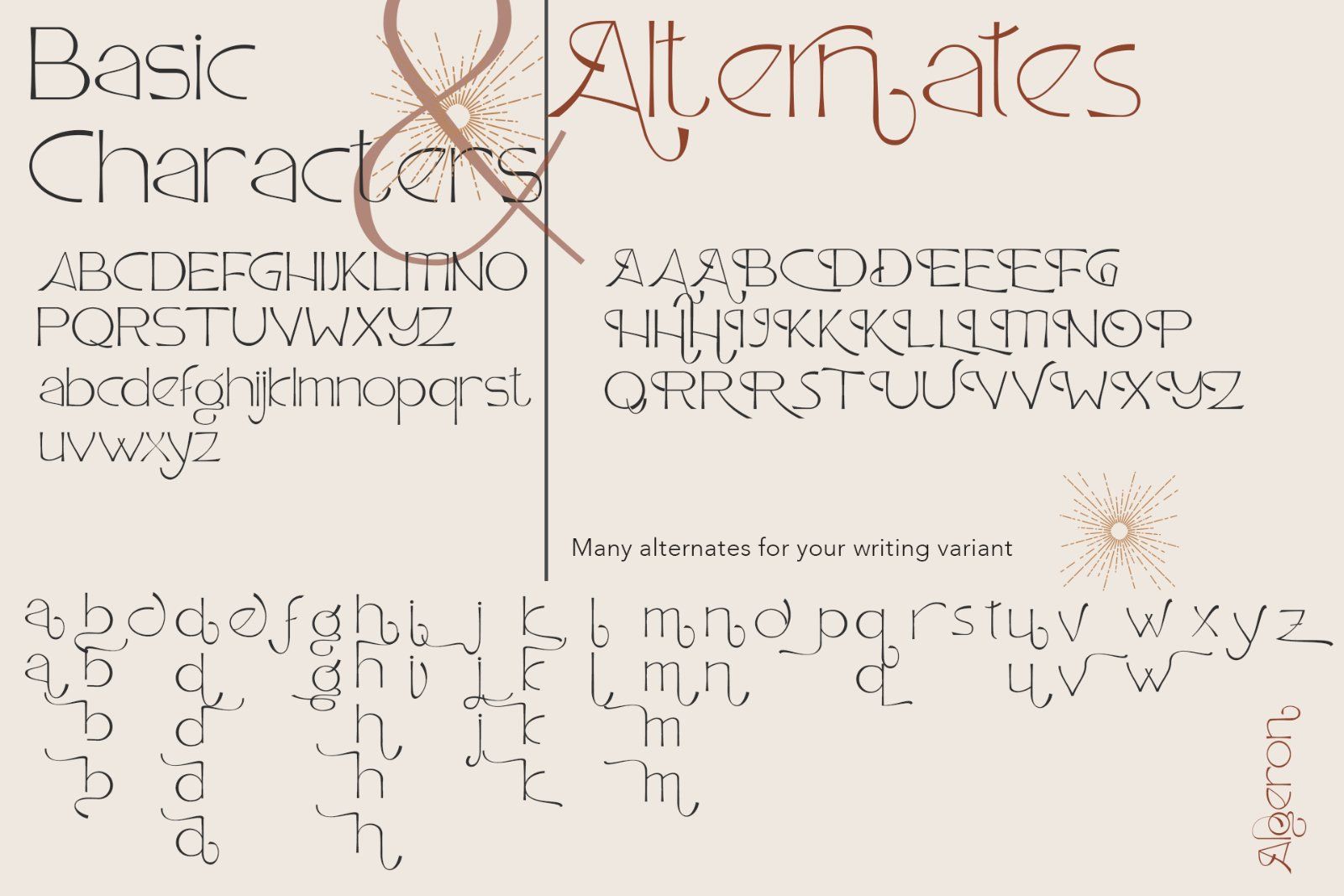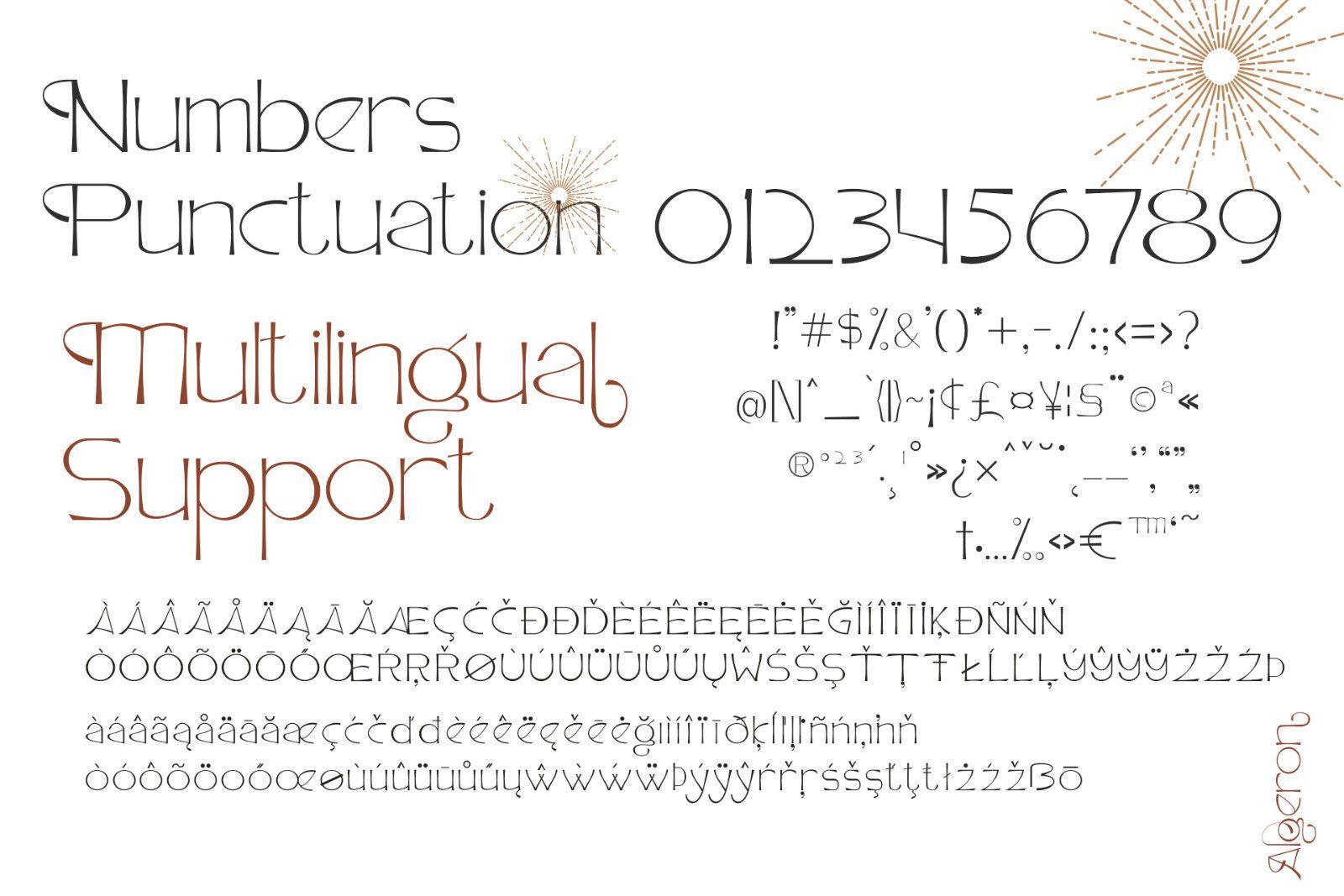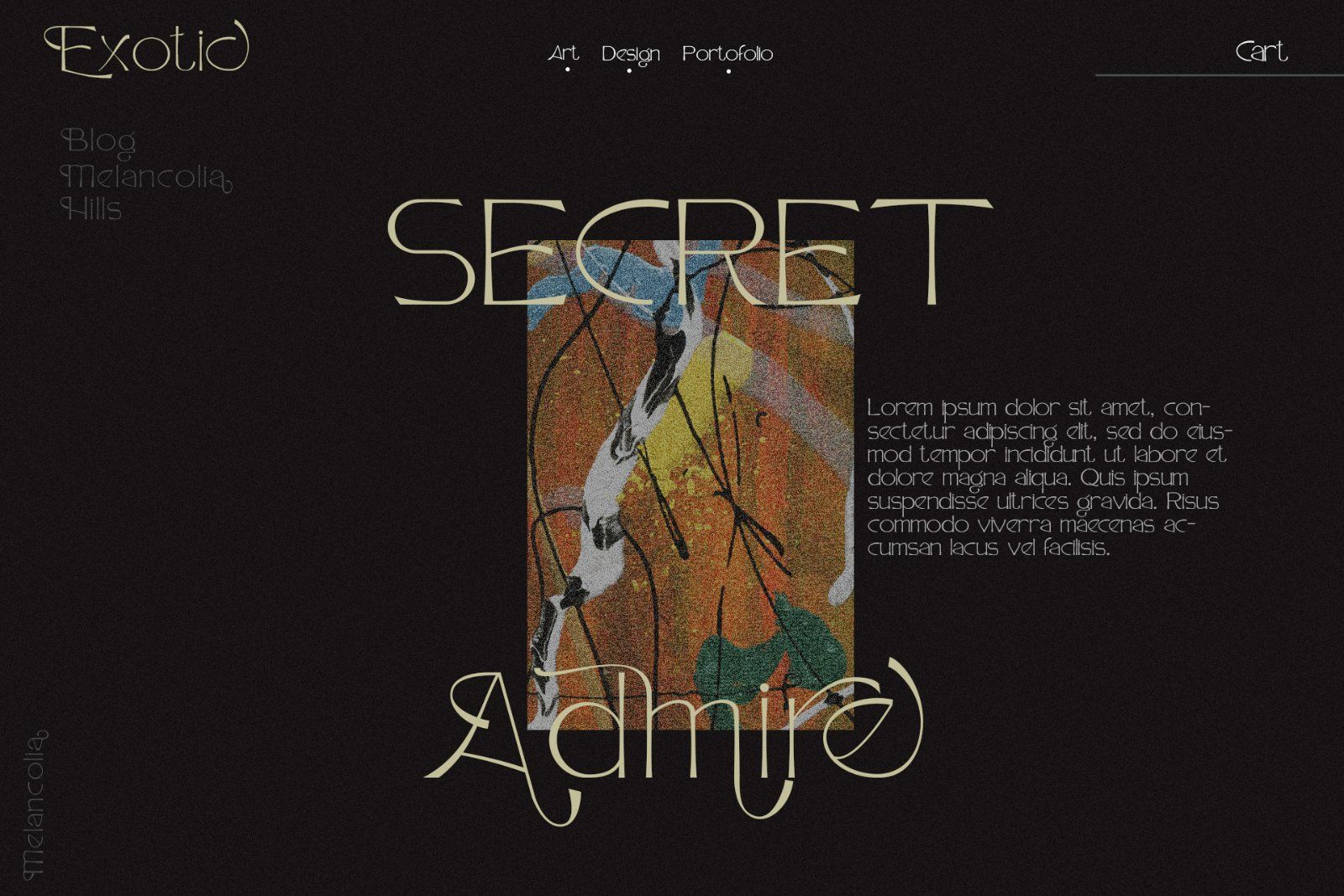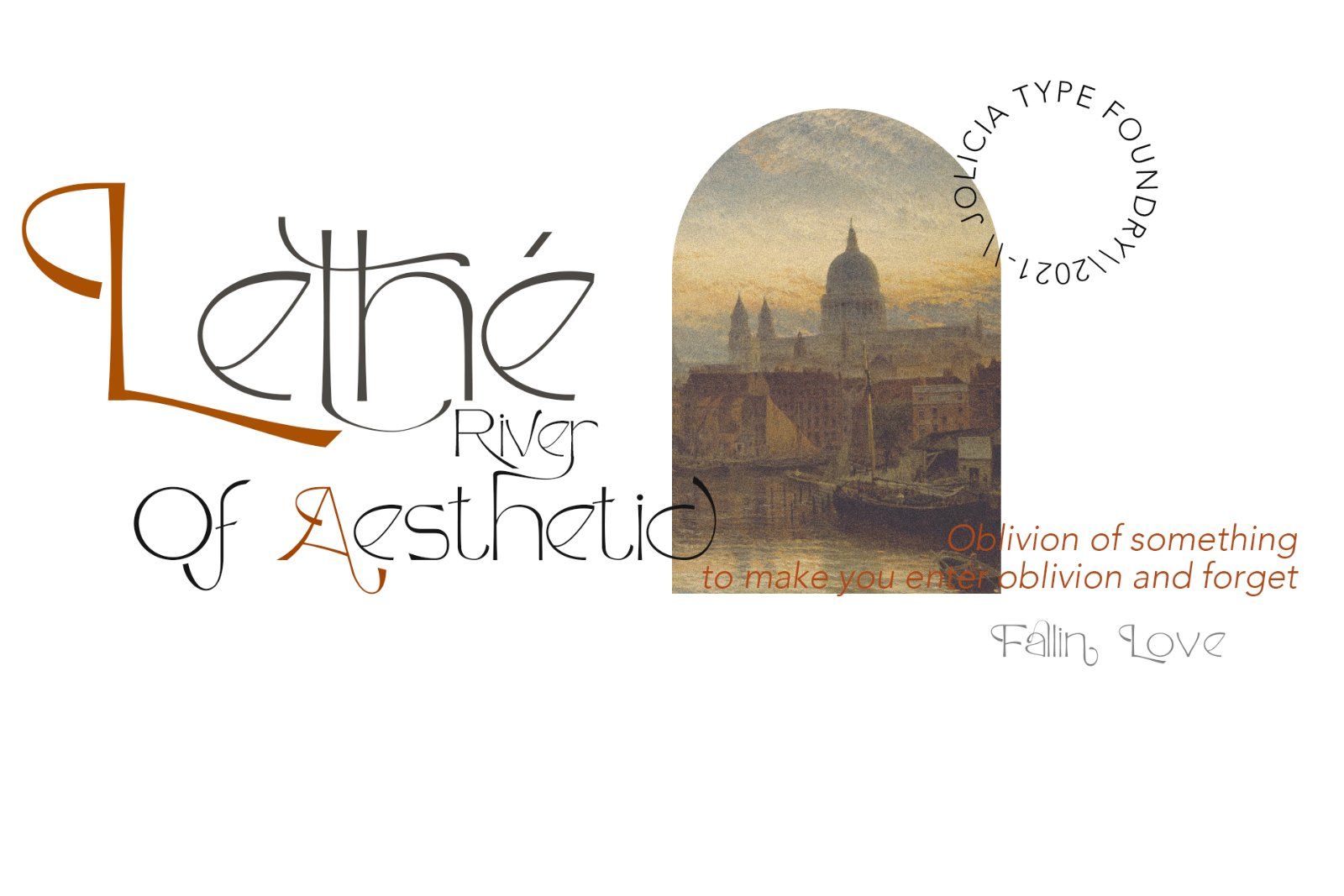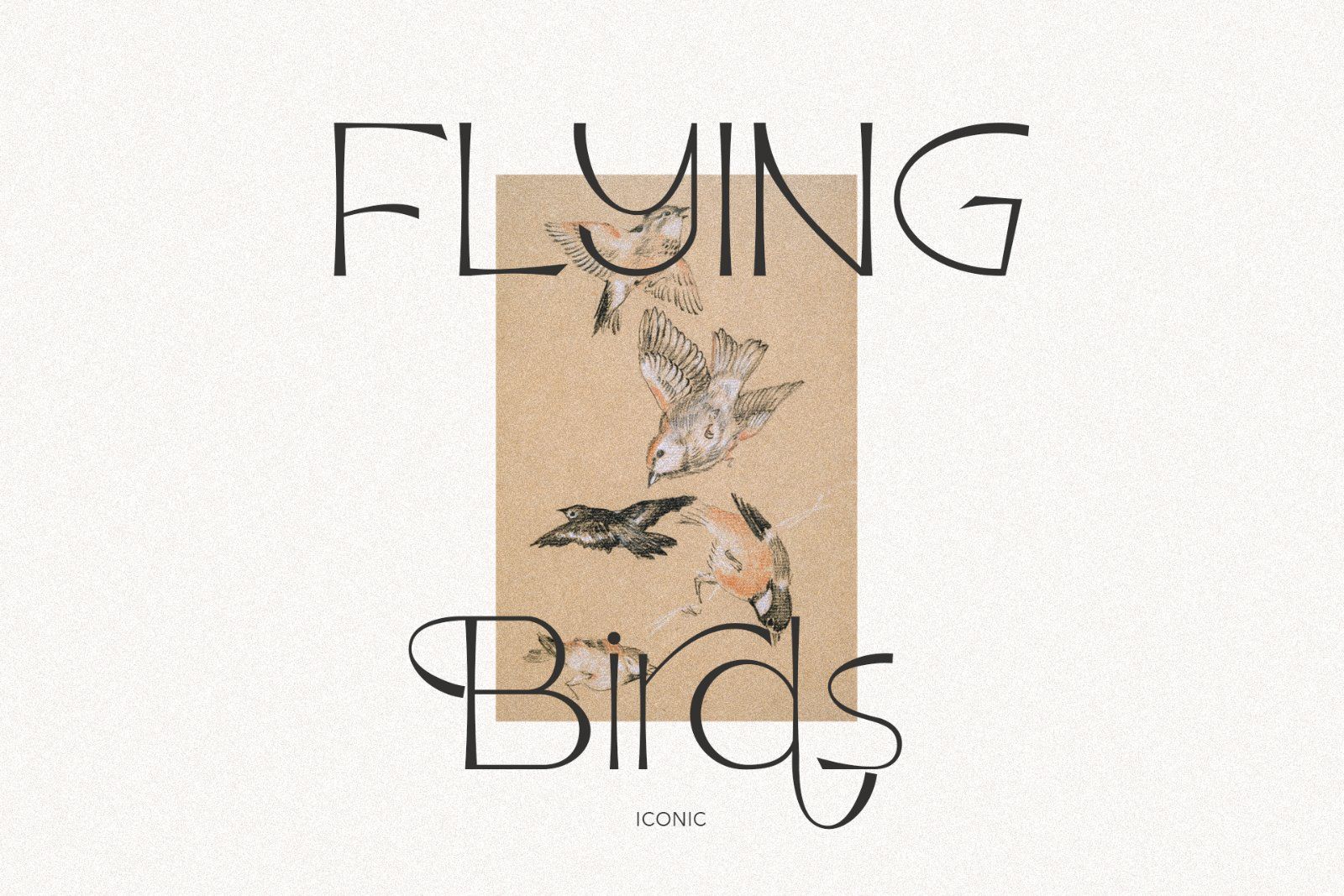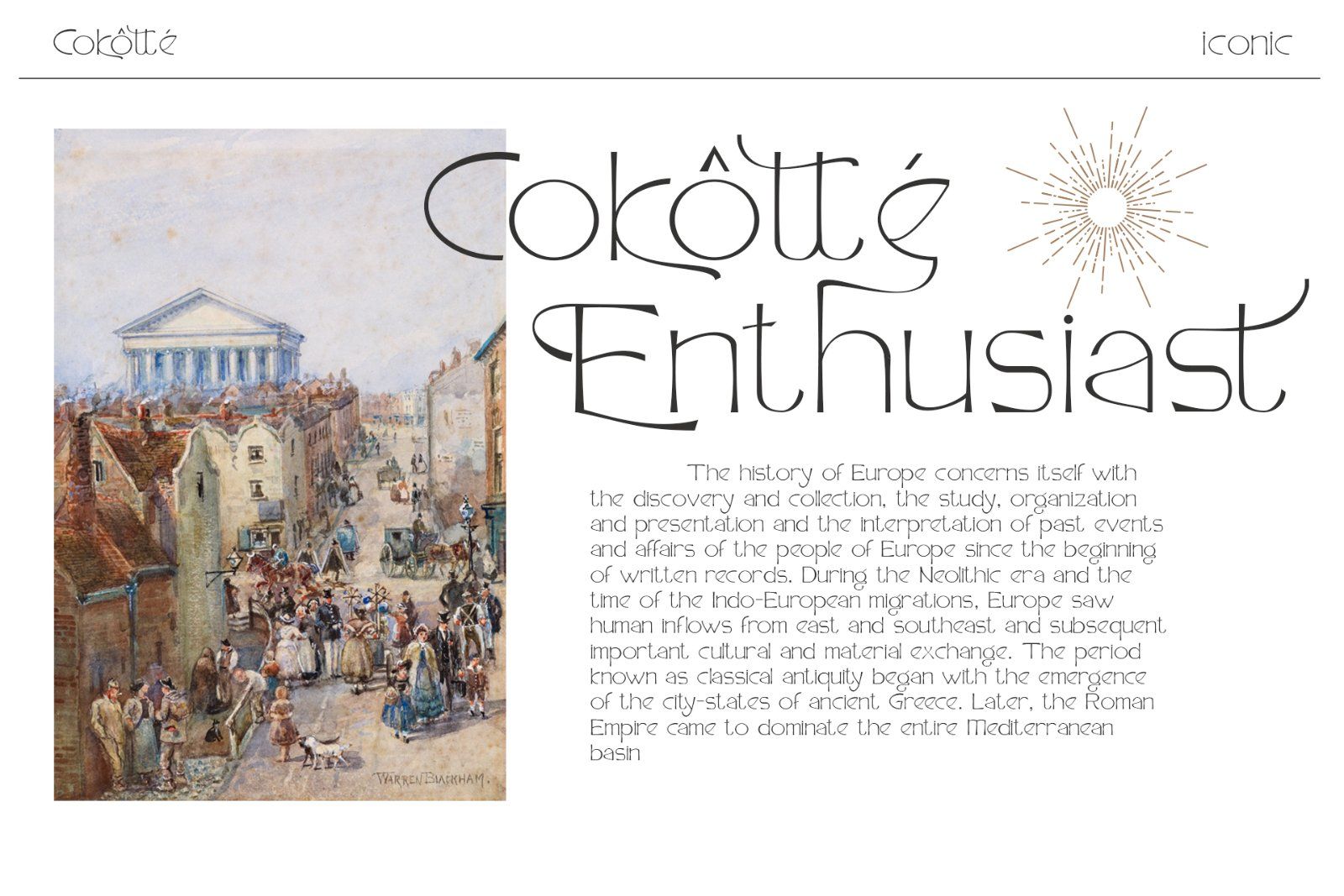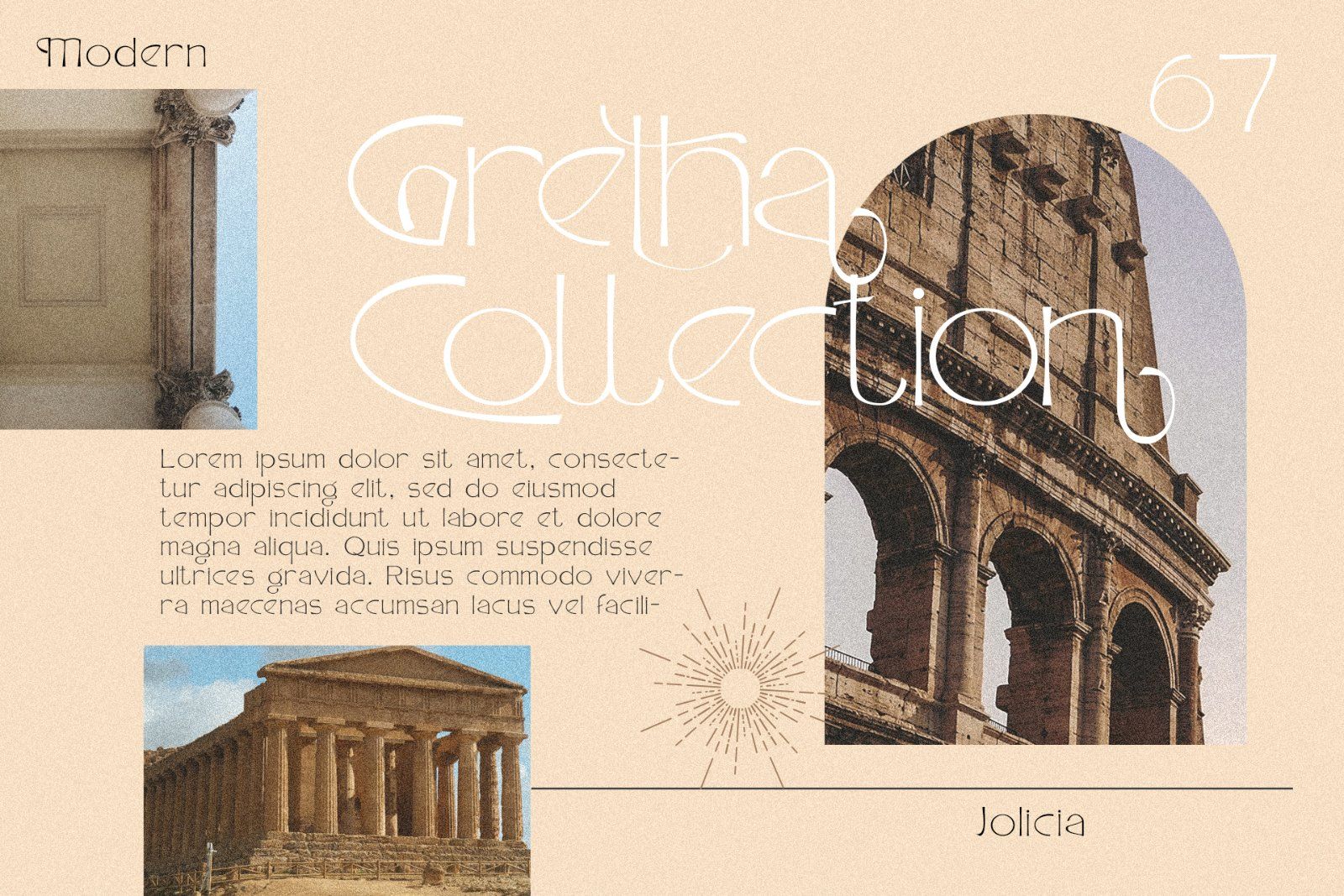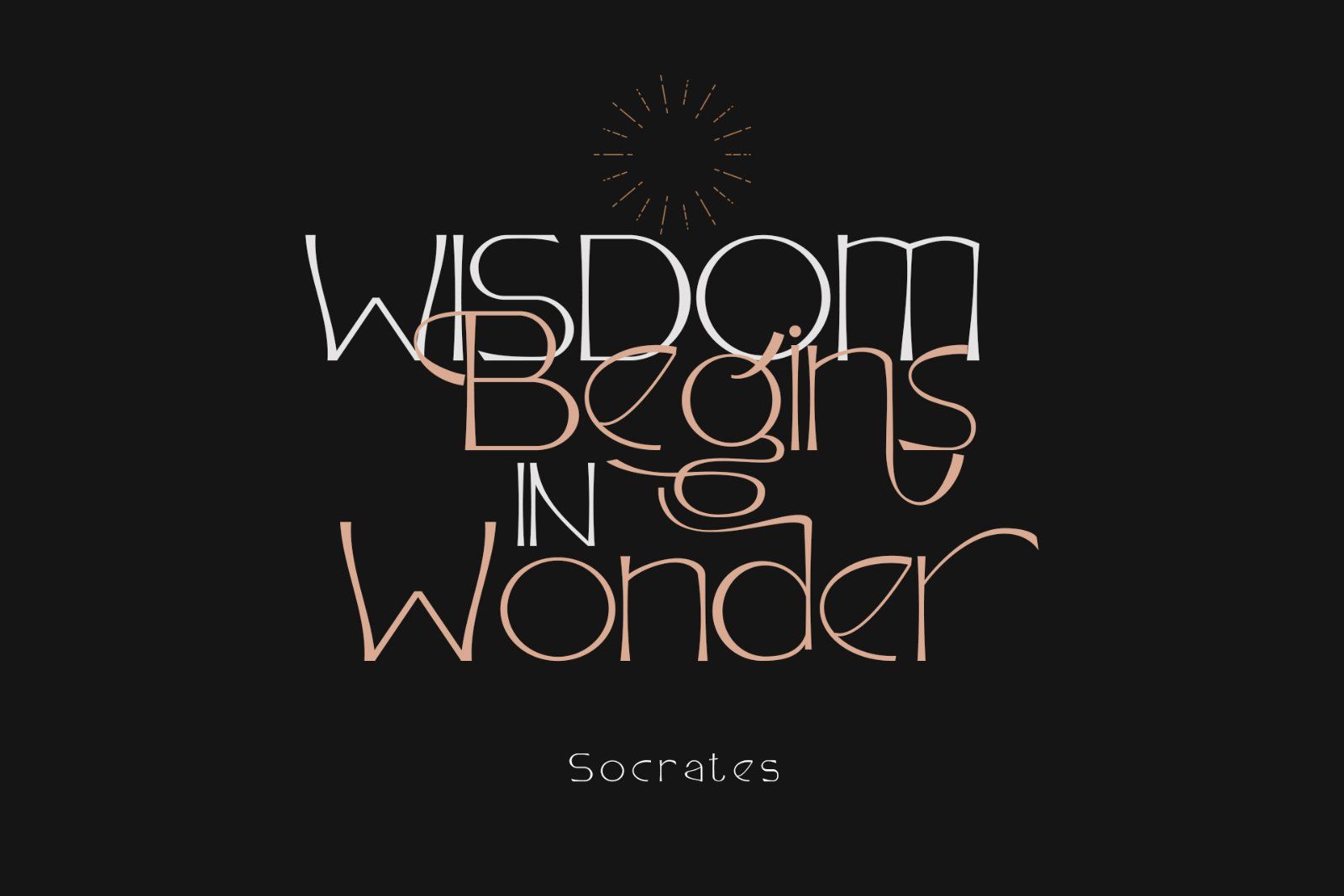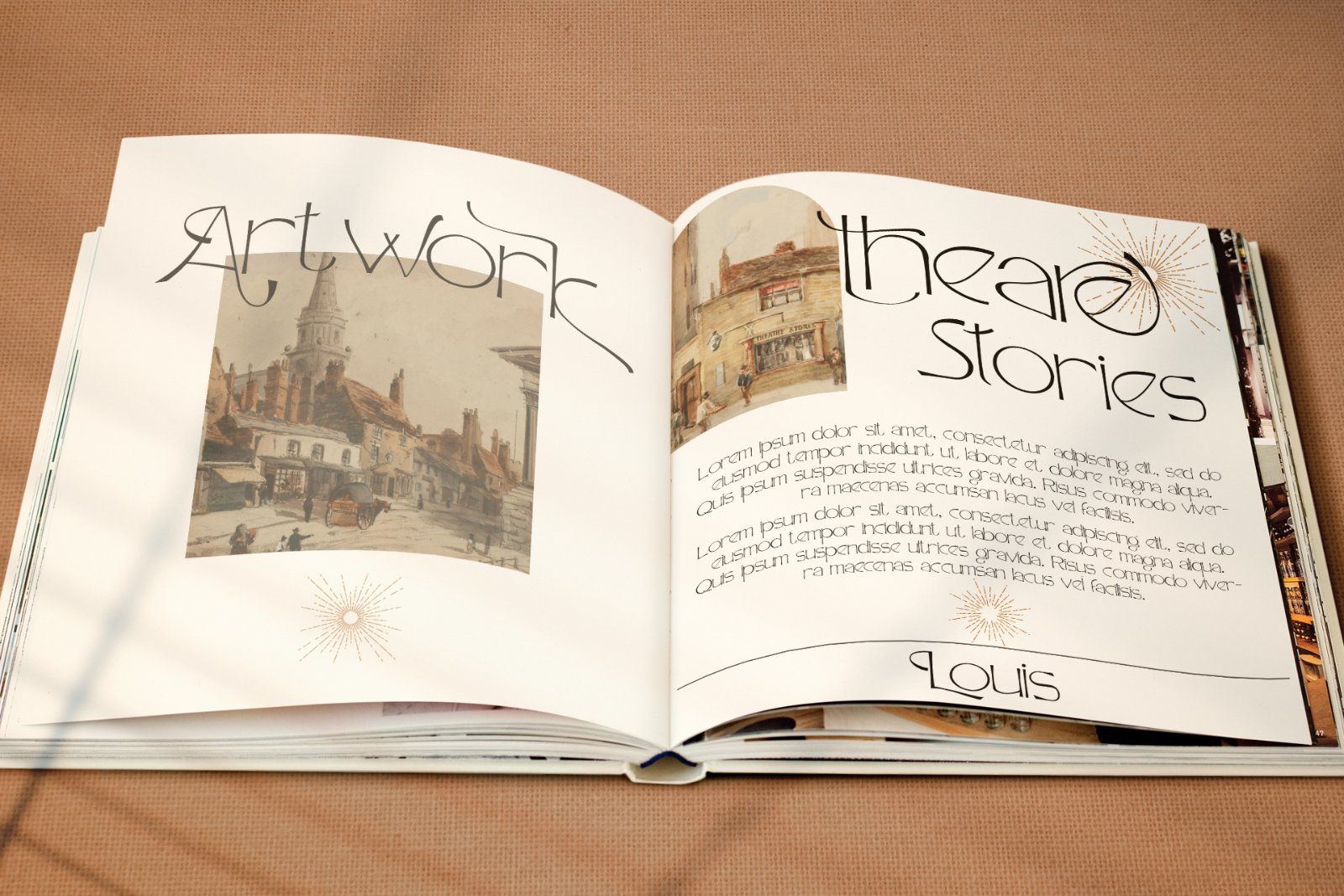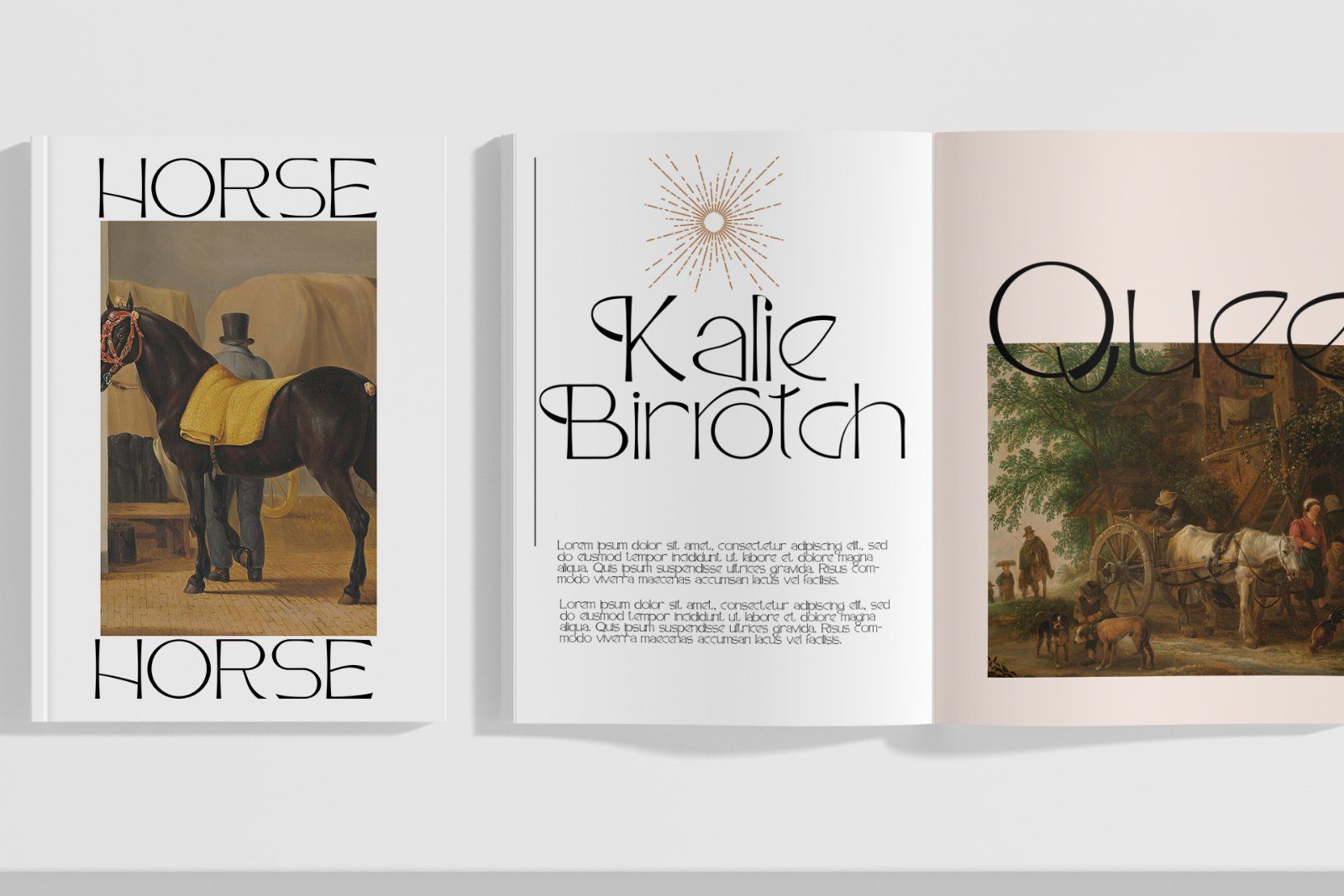
Algeron is a thin serif font with an ethnic feel and a modern twist, many alternates choices so that you can combine according to your style.
Give your text some elegance and personality
and also you can use discretionary ligatures curves add a unique style
• Full uppercase, lowercase, numbers, punctuation + multilingual letters.